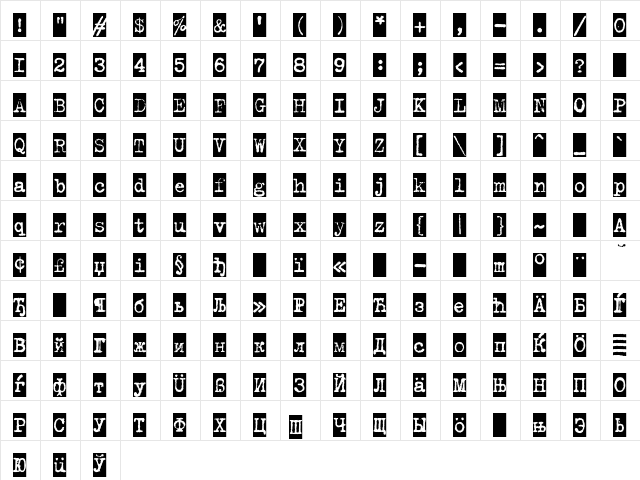
TrixieCyrG Medium Font Preview
TrixieCyrG Medium
TrixieCyrG Medium Font Details
| Foundry | Copr. LettError Erik van Blokland, FontShop International |
Design Context for TrixieCyrG Typeface
TrixieCyrG is a composed and adaptable typeface that performs quietly and consistently across a wide range of design contexts.
Pro Tip: Use TrixieCyrG in both headline and body roles to test its range before committing to a single application.